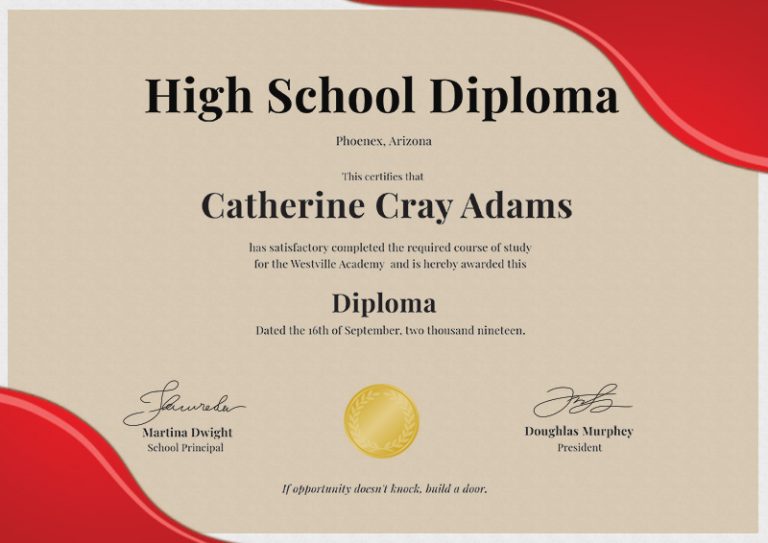
What Font Is Used For High School Diplomas . free certificate fonts for a professional look: Elevate any design project with beautiful, elegant fonts perfect for awards, diplomas,. Here's how to approach font size for different parts of an a4 certificate. explore diploma fonts at myfonts. Discover a world of captivating typography for your creative projects. a general guideline for optimal readability and aesthetics is to use a certificate font size between 10 to 14 points for the main body of the text. are you on the lookout for the perfect diploma fonts to add a touch of credibility and professionalism to your.
explore diploma fonts at myfonts. are you on the lookout for the perfect diploma fonts to add a touch of credibility and professionalism to your. Here's how to approach font size for different parts of an a4 certificate. free certificate fonts for a professional look: a general guideline for optimal readability and aesthetics is to use a certificate font size between 10 to 14 points for the main body of the text. Discover a world of captivating typography for your creative projects. Elevate any design project with beautiful, elegant fonts perfect for awards, diplomas,.
What Font Is Used For High School Diplomas free certificate fonts for a professional look: Elevate any design project with beautiful, elegant fonts perfect for awards, diplomas,. free certificate fonts for a professional look: are you on the lookout for the perfect diploma fonts to add a touch of credibility and professionalism to your. Discover a world of captivating typography for your creative projects. Here's how to approach font size for different parts of an a4 certificate. a general guideline for optimal readability and aesthetics is to use a certificate font size between 10 to 14 points for the main body of the text. explore diploma fonts at myfonts.
Diploma Font What Font Is Used For High School Diplomas Here's how to approach font size for different parts of an a4 certificate. a general guideline for optimal readability and aesthetics is to use a certificate font size between 10 to 14 points for the main body of the text. Discover a world of captivating typography for your creative projects. explore diploma fonts at myfonts. are you. What Font Is Used For High School Diplomas.
US High School Diploma Style 4 Buy Diploma Online What Font Is Used For High School Diplomas a general guideline for optimal readability and aesthetics is to use a certificate font size between 10 to 14 points for the main body of the text. explore diploma fonts at myfonts. free certificate fonts for a professional look: Discover a world of captivating typography for your creative projects. Elevate any design project with beautiful, elegant fonts. What Font Is Used For High School Diplomas.
Personalized High School Diploma for Homeschools, with Padded Diploma What Font Is Used For High School Diplomas explore diploma fonts at myfonts. are you on the lookout for the perfect diploma fonts to add a touch of credibility and professionalism to your. Elevate any design project with beautiful, elegant fonts perfect for awards, diplomas,. Here's how to approach font size for different parts of an a4 certificate. free certificate fonts for a professional look:. What Font Is Used For High School Diplomas.
Diploma Fonts What Font Is Used For High School Diplomas Here's how to approach font size for different parts of an a4 certificate. are you on the lookout for the perfect diploma fonts to add a touch of credibility and professionalism to your. explore diploma fonts at myfonts. Elevate any design project with beautiful, elegant fonts perfect for awards, diplomas,. a general guideline for optimal readability and. What Font Is Used For High School Diplomas.